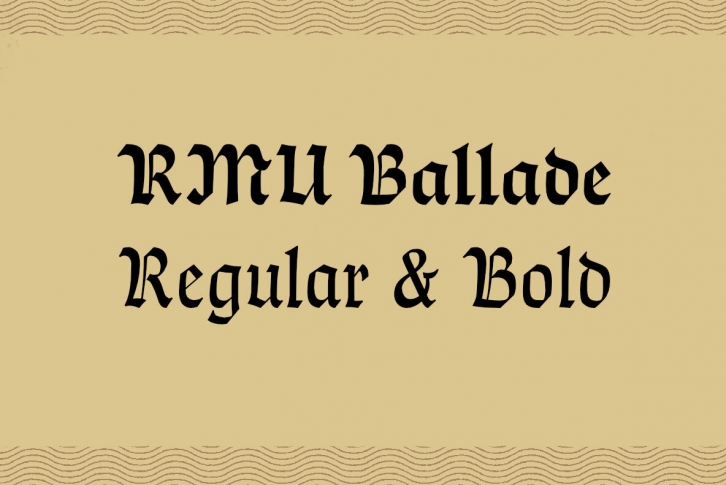
Originally designed by Paul Renner in 1937 and 1938, the Ballade font family has now been freshly redesigned and expanded for contemporary use. The updated collection features two styles, both of which maintain the historical long s. This character can be accessed by typing the integral sign [∫] or by converting the round s into the long s using the OpenType feature for historical forms. To further enhance the font's historical appearance, it is recommended to activate the OpenType feature for discretionary ligatures.